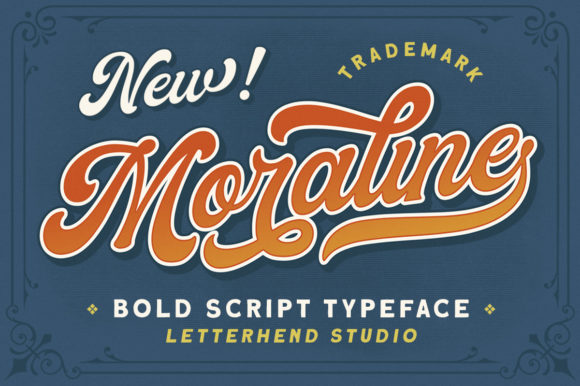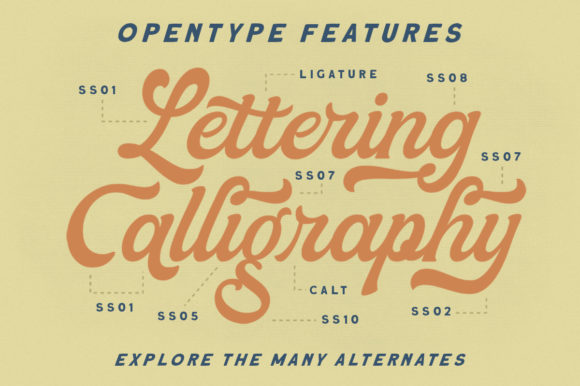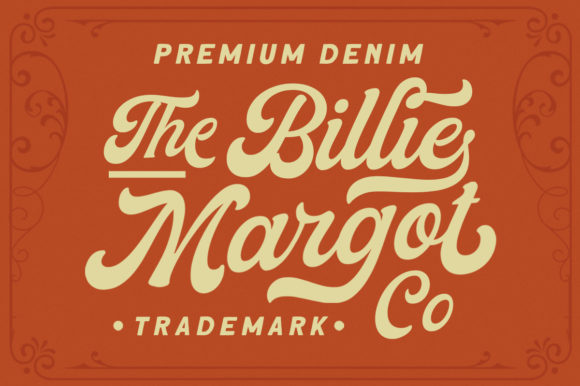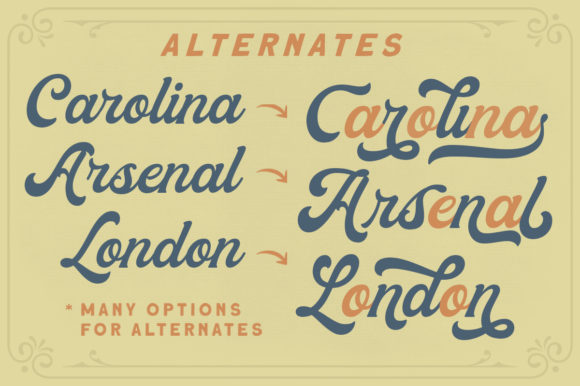
Moraline Font: Bold Retro Script for Eye-Catching Logo Design
About the Moraline Font
Explore the possibilities with Moraline Font, a font that offers both beauty and functionality. Moraline is a retro styled and bold handwritten font, crafted to give your headlines and logotype projects a stylish touch. This font reads as strong, confident, and dynamic and can add tons of nostalgic character to your designs.
Moraline excels in headline applications, short impactful quotes, and logo designs where its bold, retro style makes a strong statement. It’s ideal for branding projects aiming for a vintage or nostalgic feel, particularly those targeting a younger, energetic demographic. Avoid using Moraline for body text or extended paragraphs; its highly stylized nature hinders readability at smaller sizes.
Consider pairing Moraline with a clean sans-serif like Open Sans for body copy to balance its strong personality, or a geometric sans-serif for a more modern contrast. For a softer touch, a delicate serif like Playfair Display can complement its boldness, creating a sophisticated yet vintage feel. Avoid pairing it with other highly decorative or handwritten fonts, which would clash visually.
Moraline’s core personality is confident and dynamic, with a playful retro edge. It’s best suited for brands that project energy, individuality, and a connection to classic design styles. Think vintage apparel, craft breweries, or music-related projects.
Moraline Font Usage Examples
Moraline Font Example